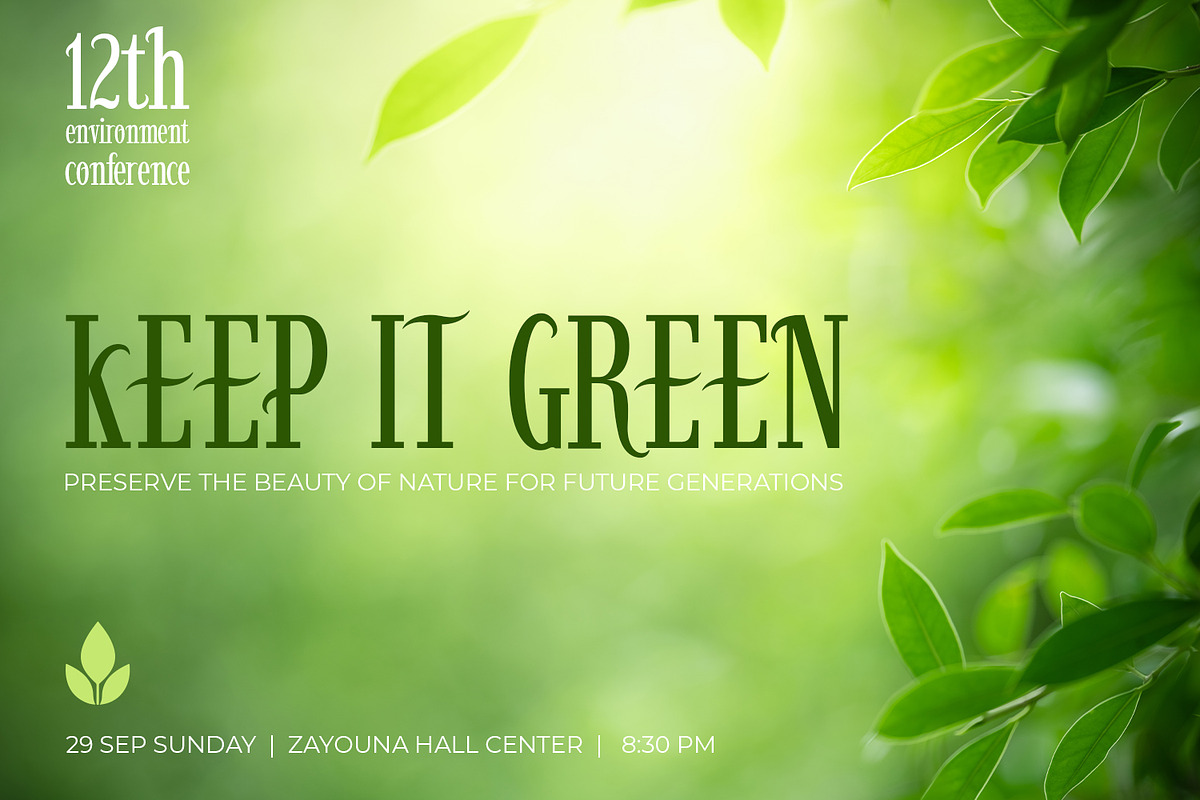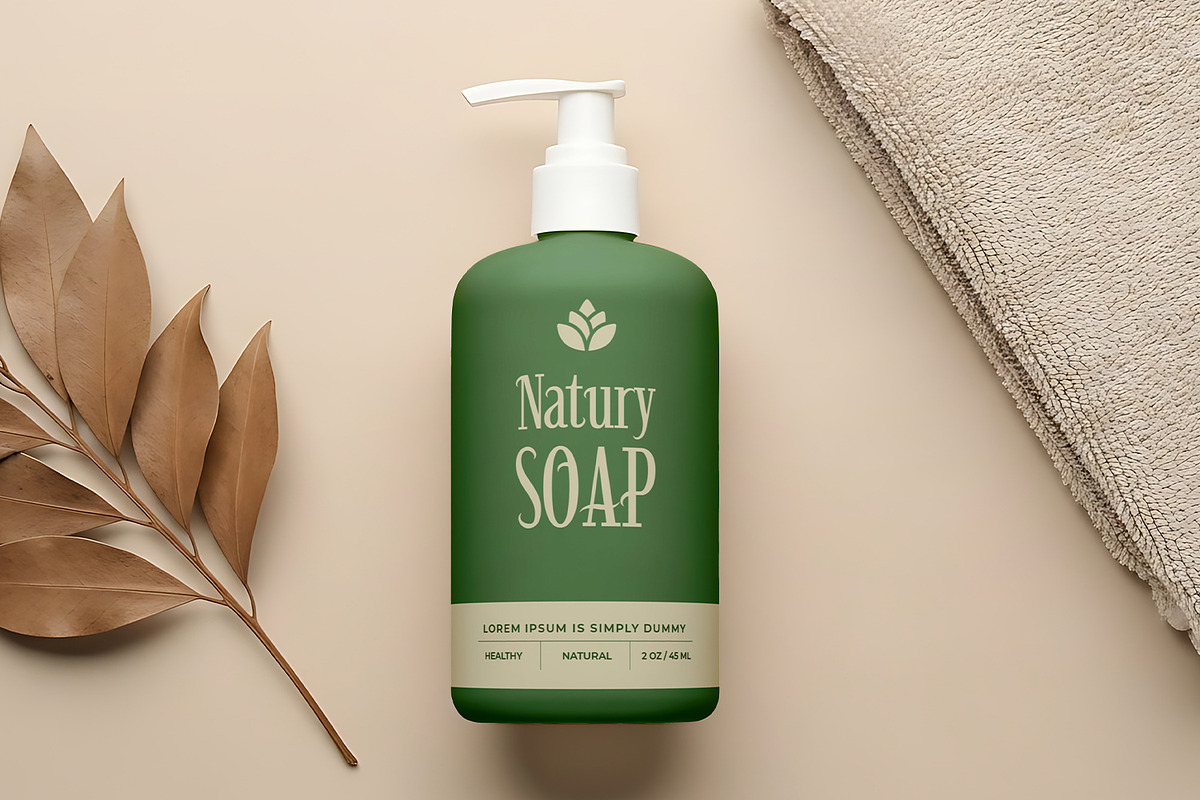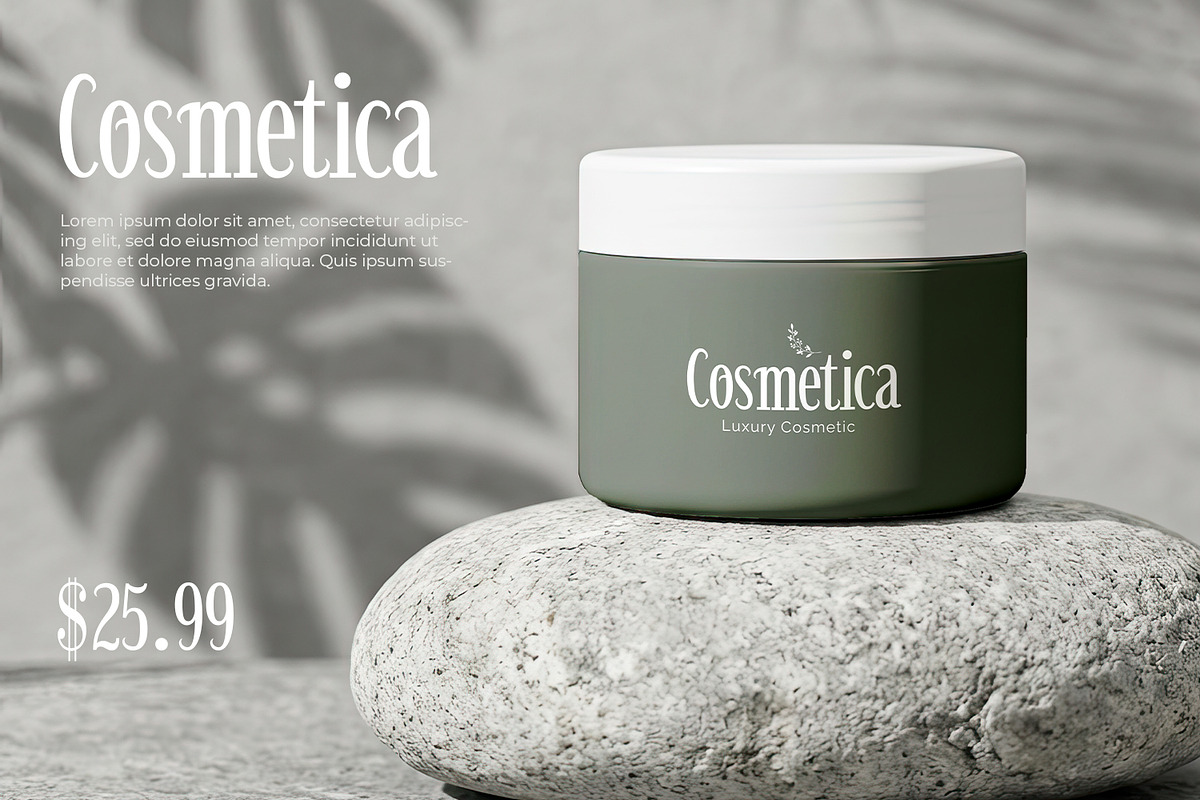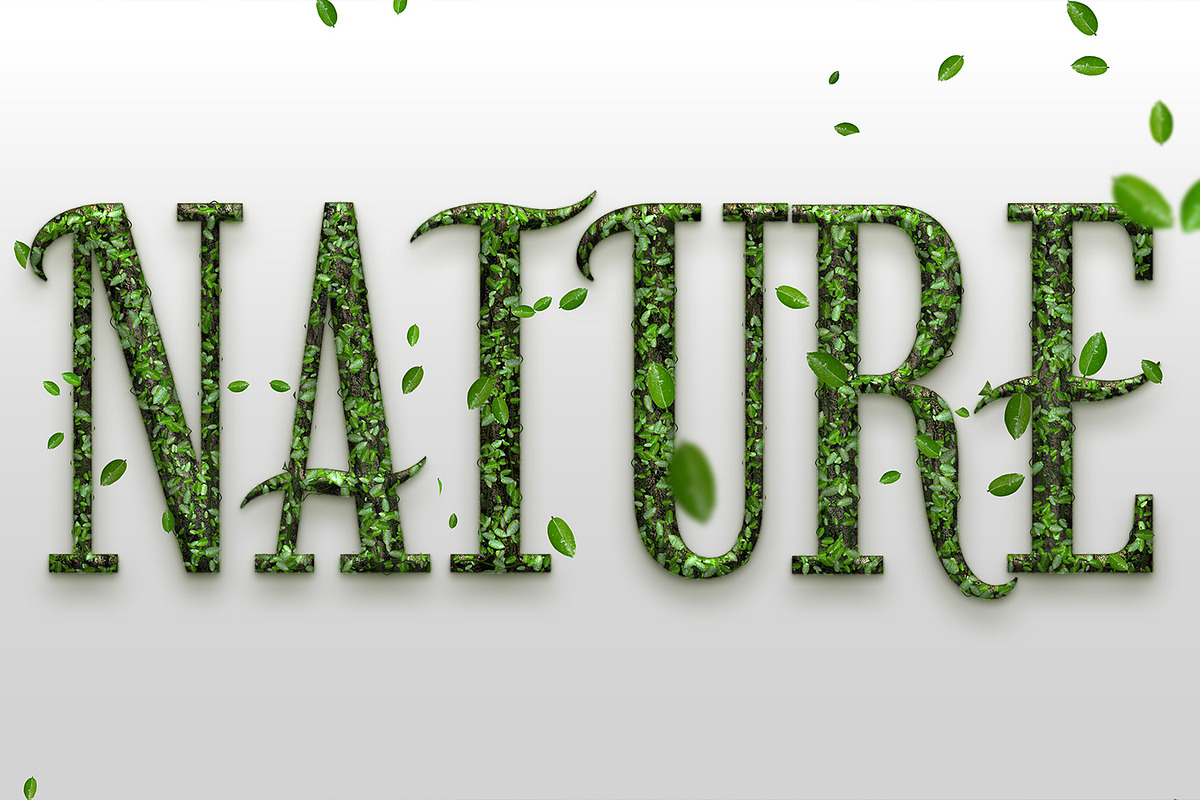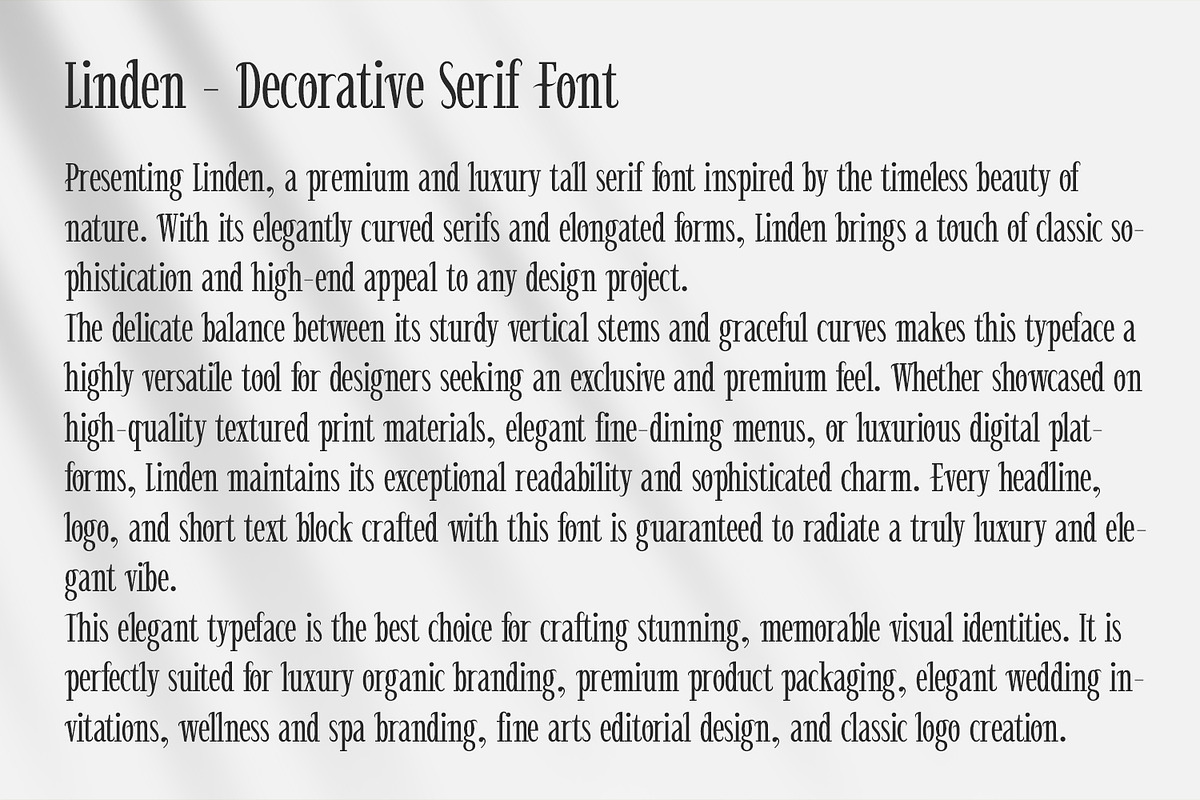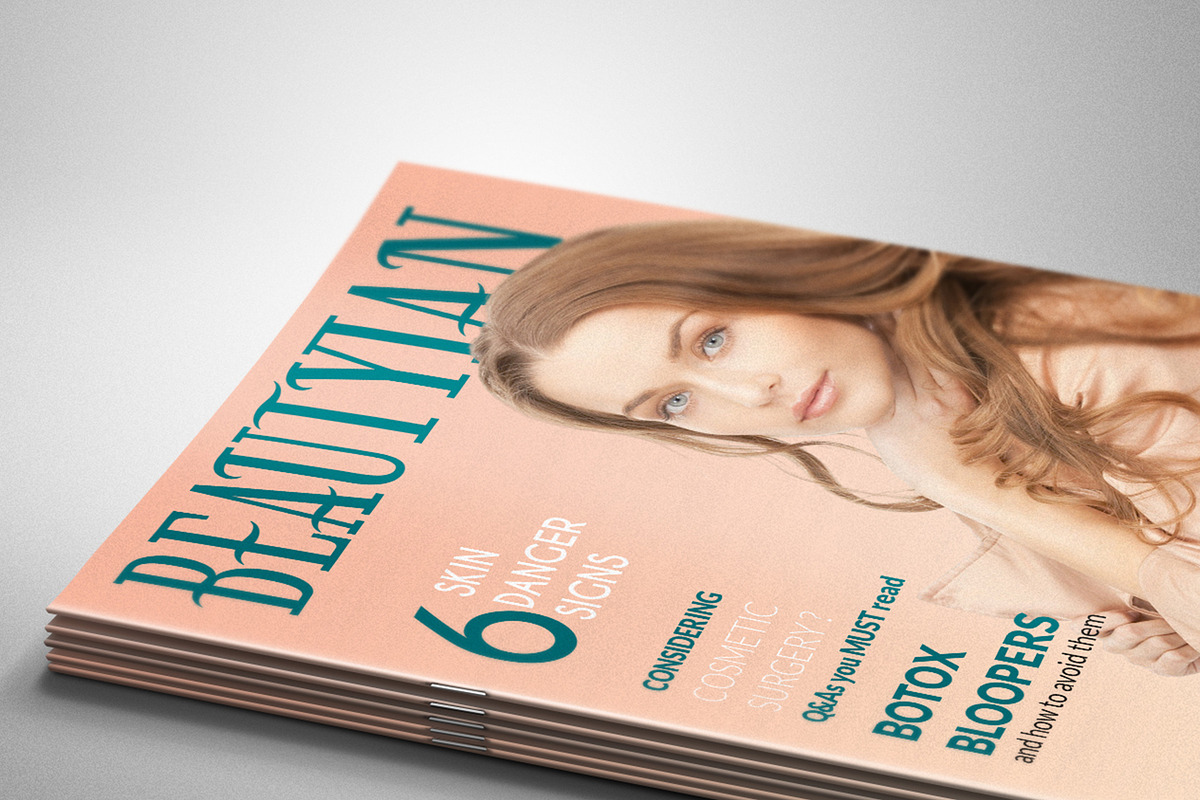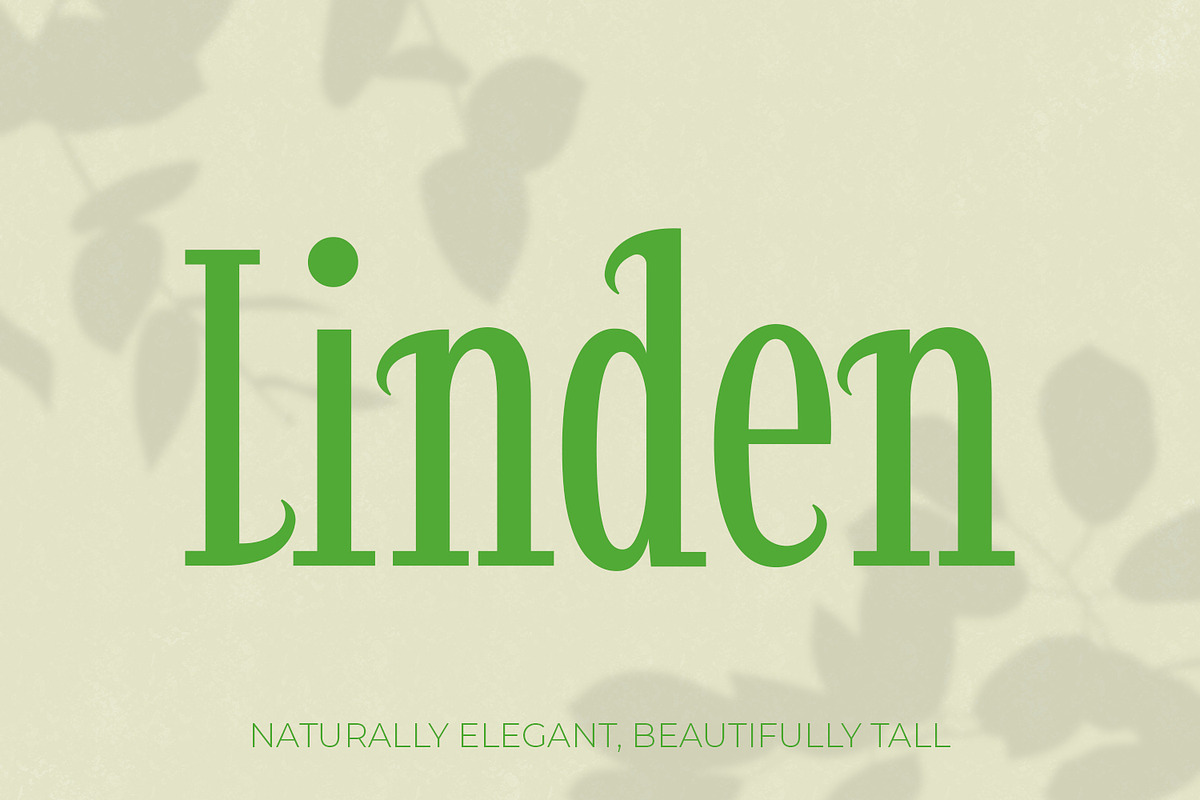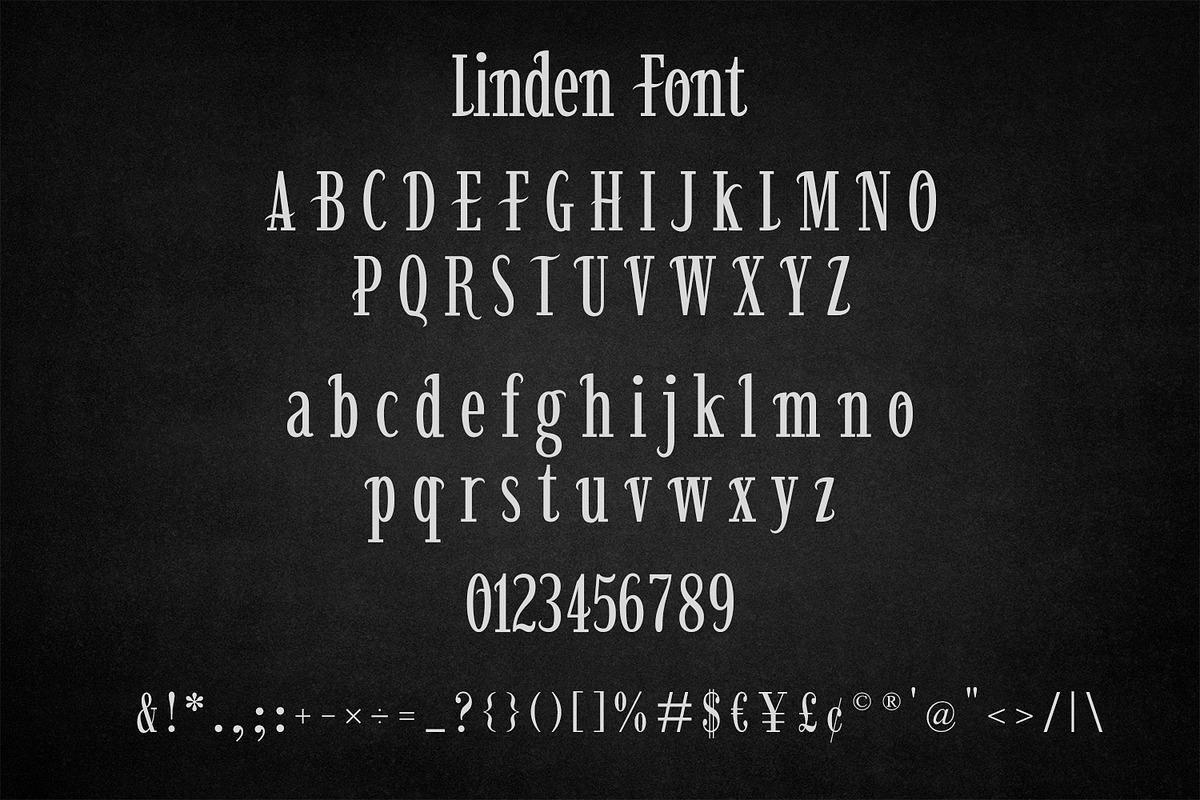
Linden - Elegant Decorative Serif
Presenting Linden, an elegant and luxury tall serif font inspired by the timeless beauty of nature. With its beautifully curved serifs and elongated forms, Linden brings a touch of classic sophistication and high-end appeal to any design project.
This premium typeface is an absolute must-have for crafting stunning visual identities. It is perfectly suited for luxury organic branding, premium product packaging, elegant wedding invitations, high-end fashion magazines, wellness and spa branding, and classic logo creation. Whether you are designing for a boutique brand, crafting aesthetic social media posts, or creating exquisite print materials, Linden guarantees a professional, stylish, and striking typographic presence.